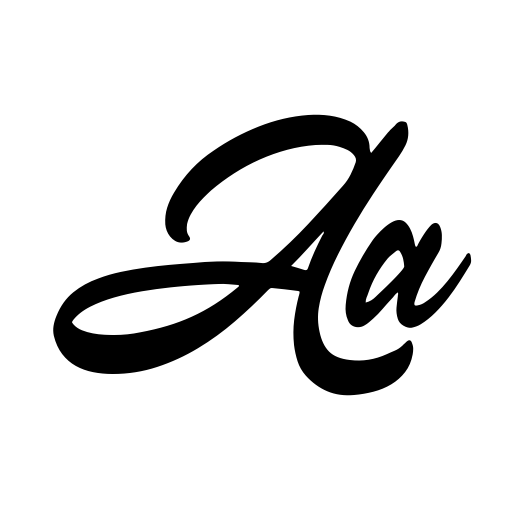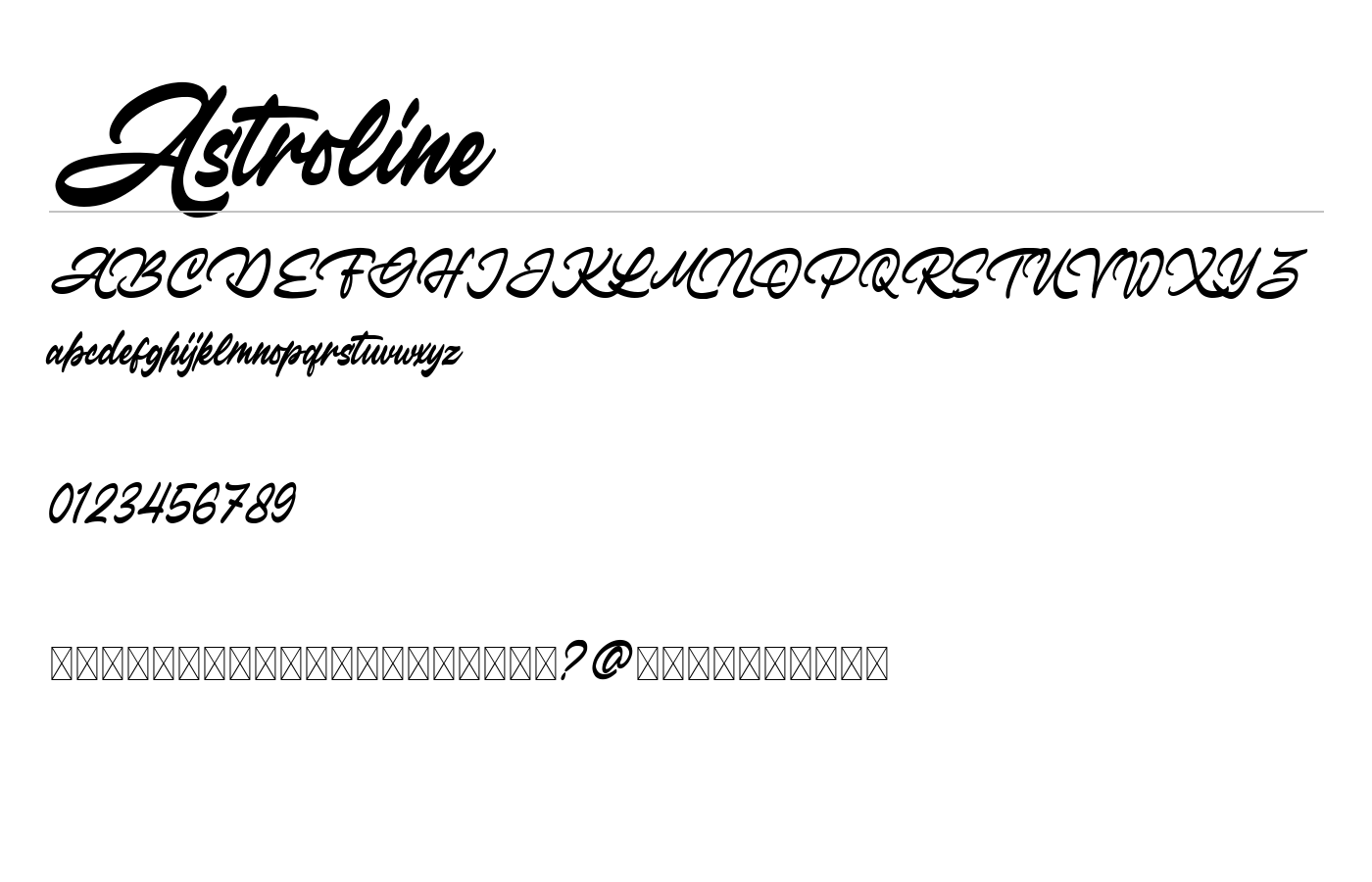
Astroline is a bold, flowing script font with a smooth and dynamic style that captures a sense of elegance and creativity. Its high contrast strokes and connected letterforms make it ideal for eye-catching headlines, logos, and branding that require a touch of sophistication and energy. This font works well in fashion, beauty, and lifestyle projects where a modern yet stylish handwritten look is desired.
Astroline Font
About Astroline Font